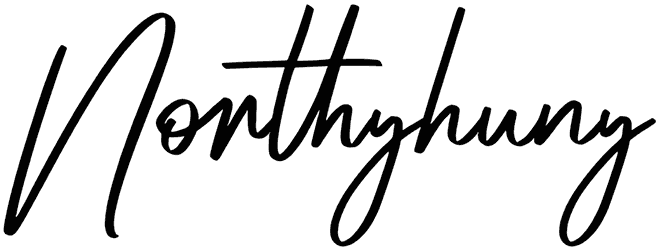
Northyhuny Font
Going on for a friendly script font with traces of natural effect to turn your graphics into an aesthetic artwork. Northyhuny font, with its intertwined letters, comes up to reflect unity and intimacy in organizing posters, greeting cards, packaging, branding, and others that need to be arresting.
Make a mental note that this font doesn’t keep numbers. Moreover, it’s trapped on reading challenges, but instead, its playful curved body design makes up for them to put your typography on the highlighting route.